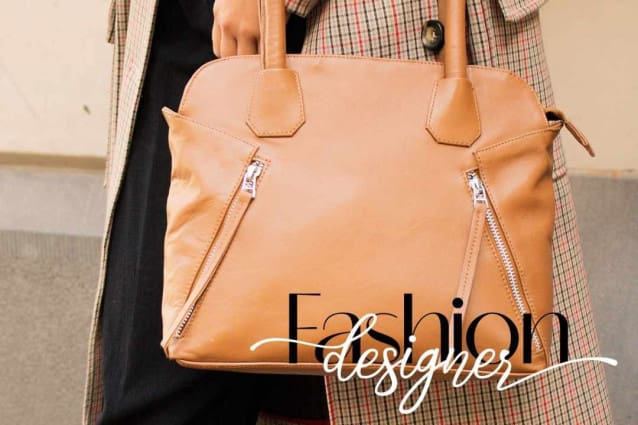
Marvelous Script Typeface
Marvelous Script Typeface,  Ideal for logos, handwritten quotes, product packaging, header, poster, merchandise, social media & greeting cards.